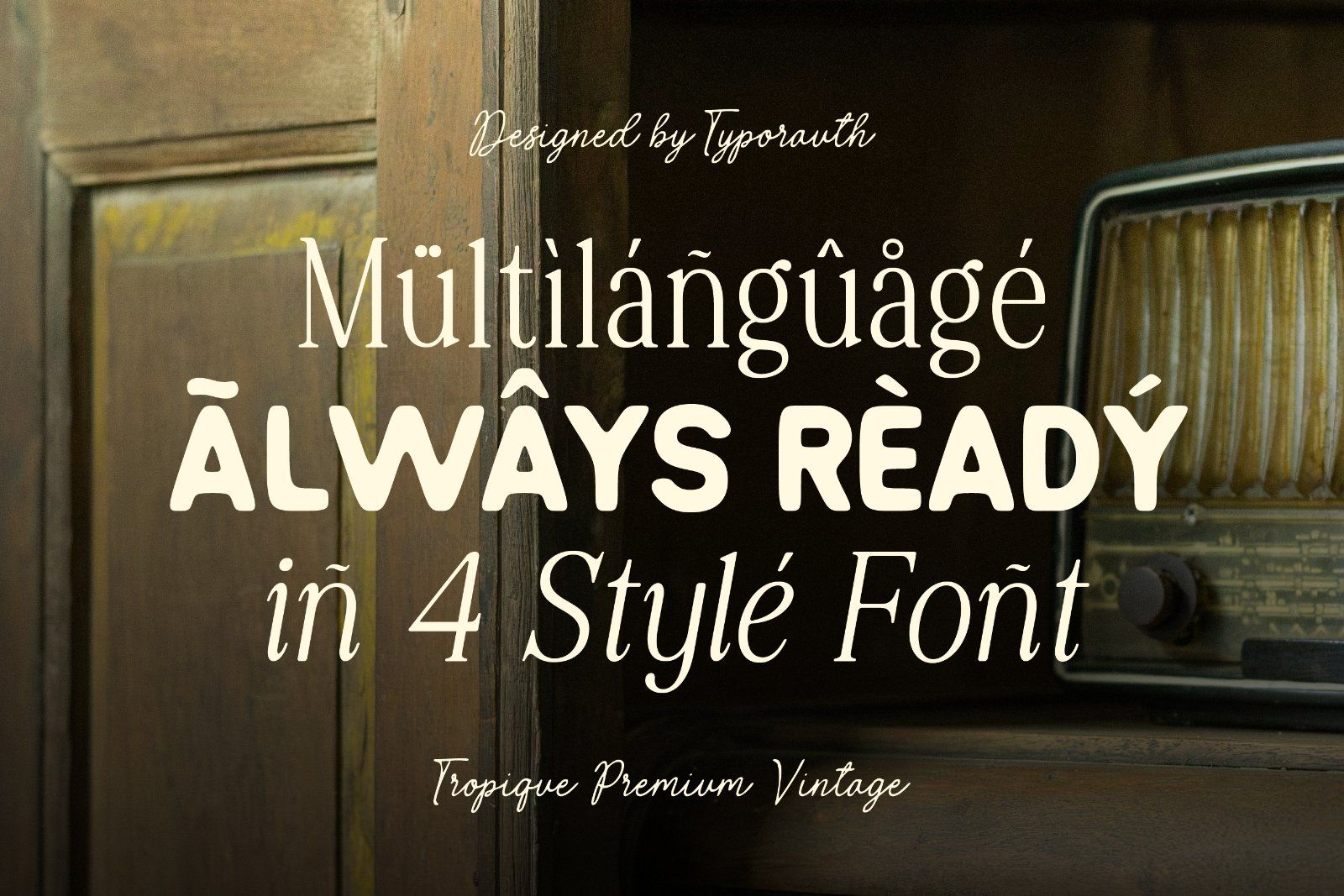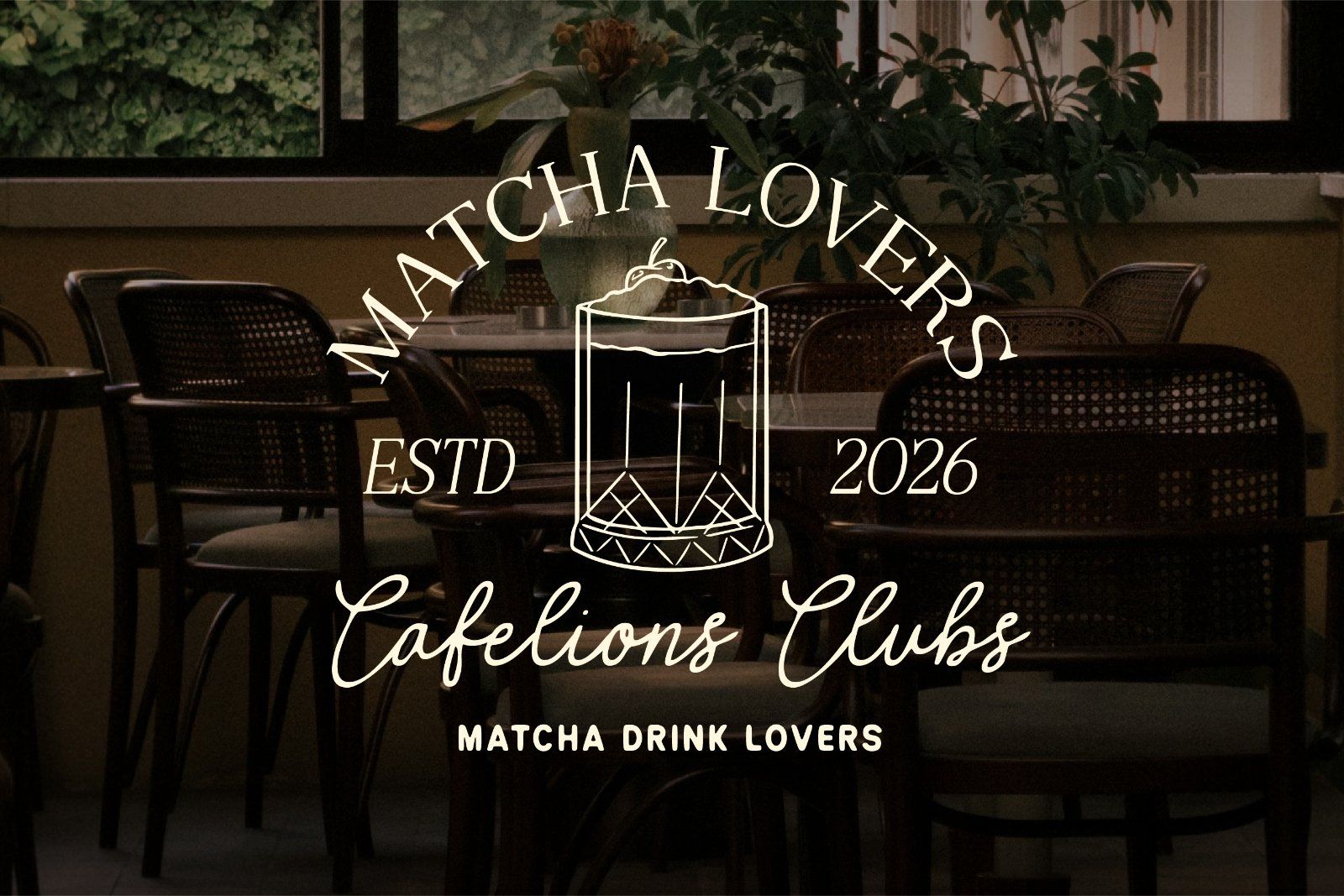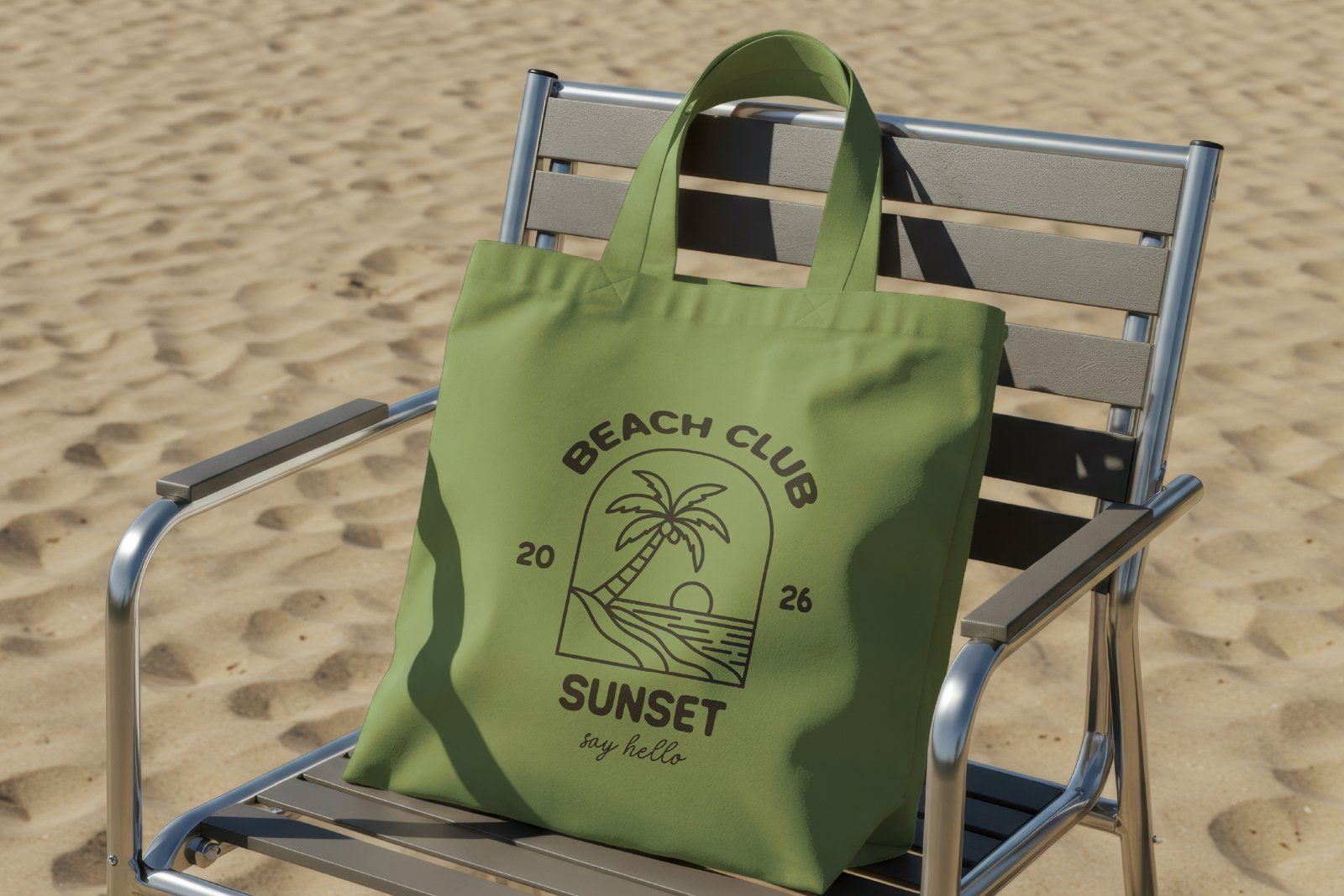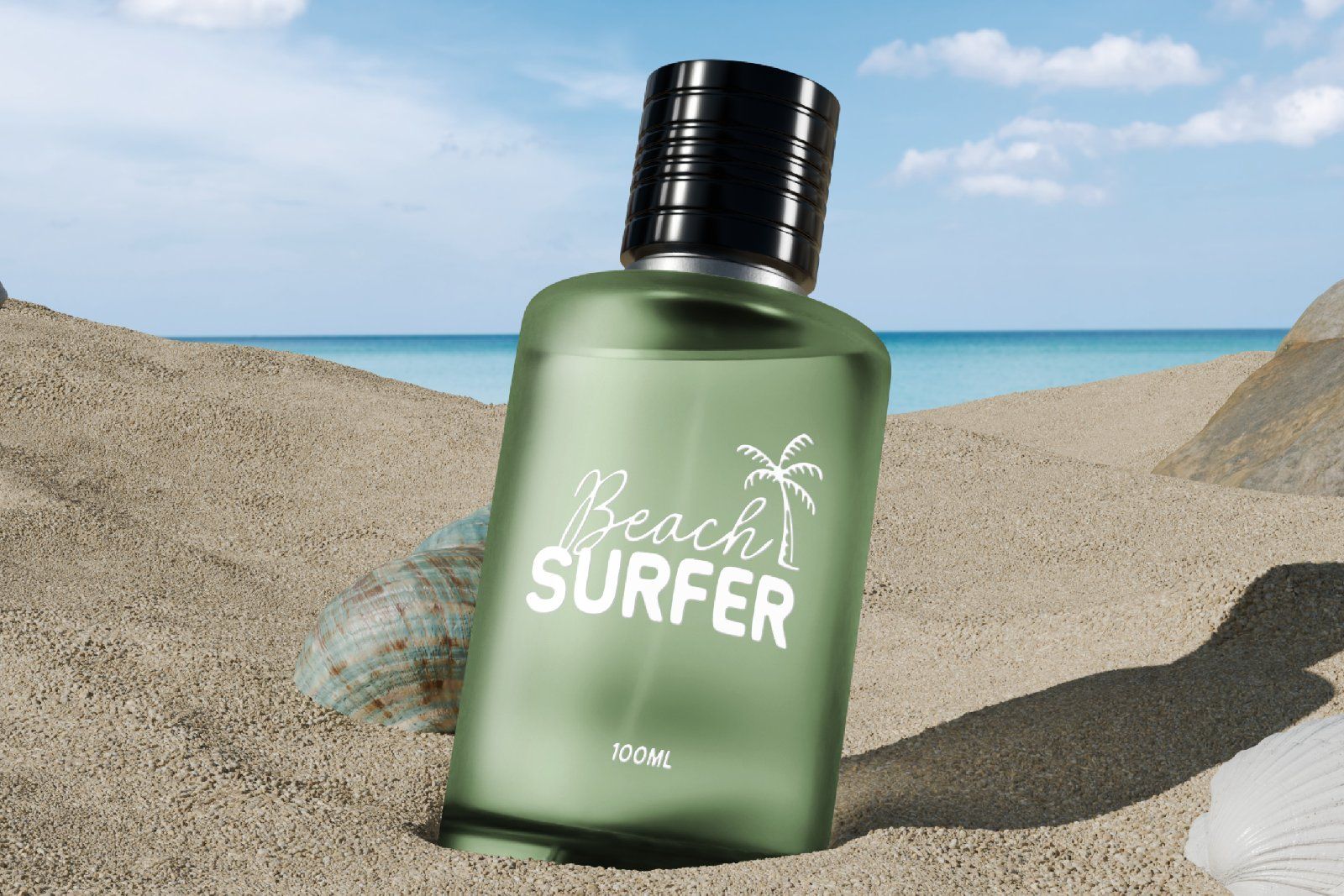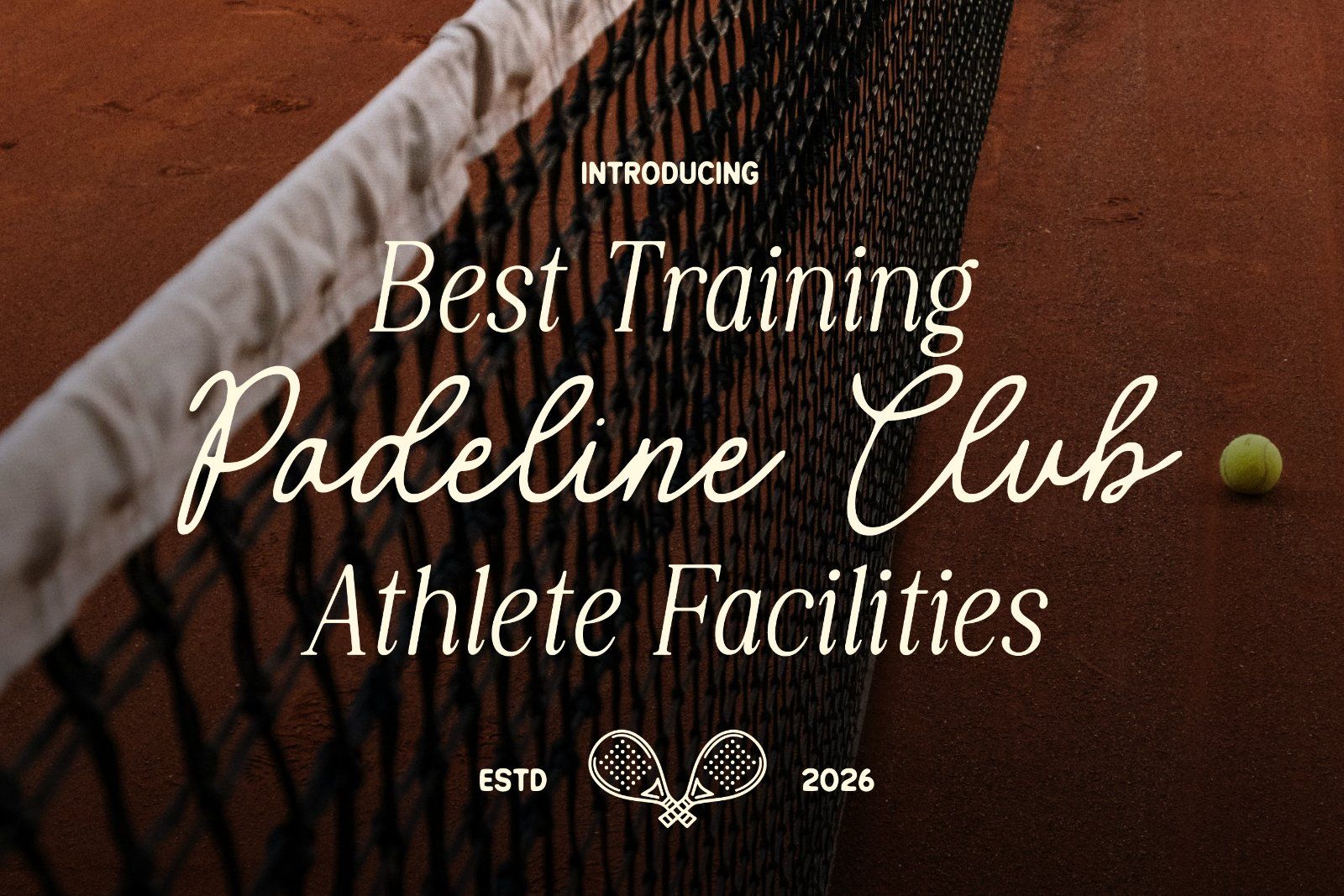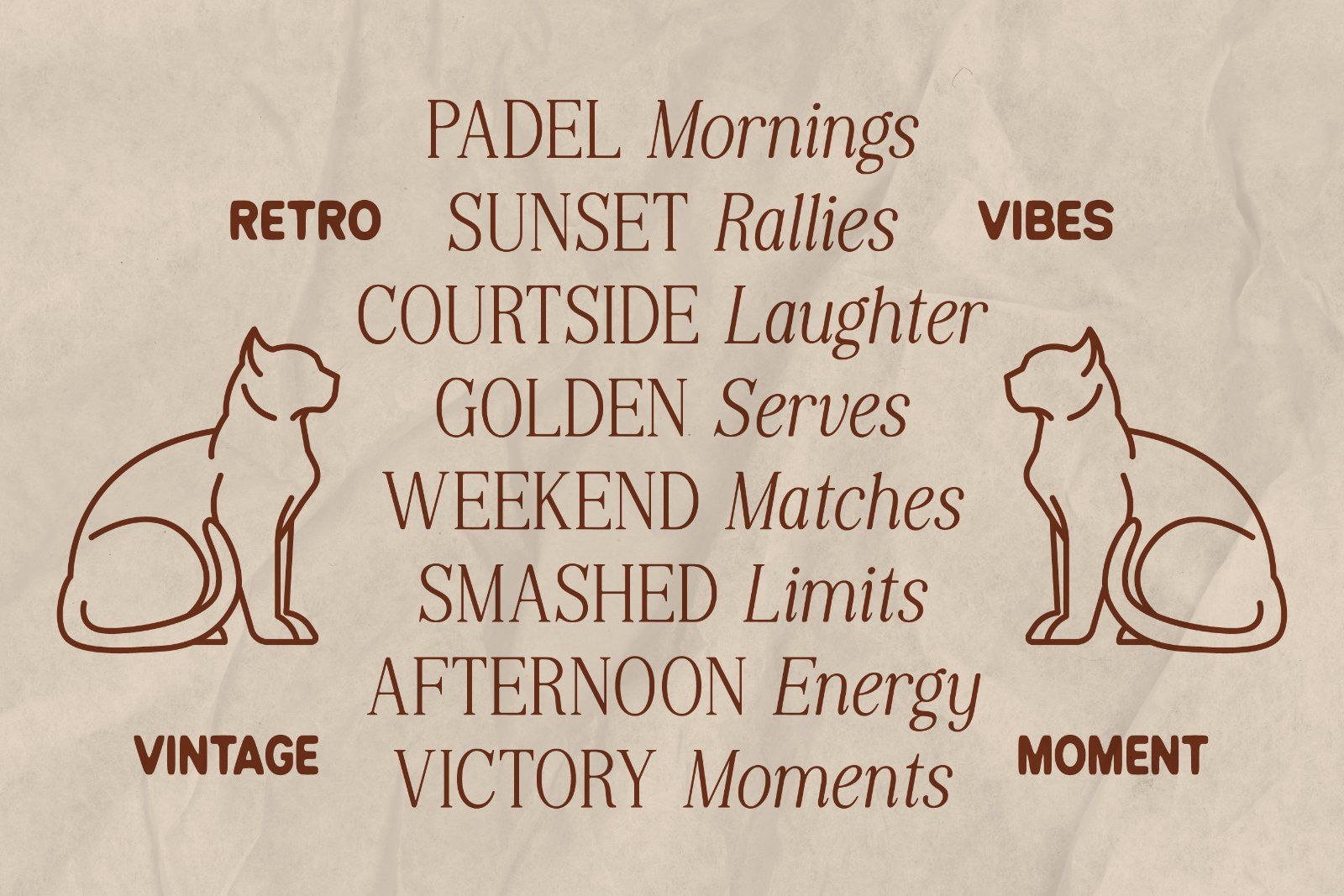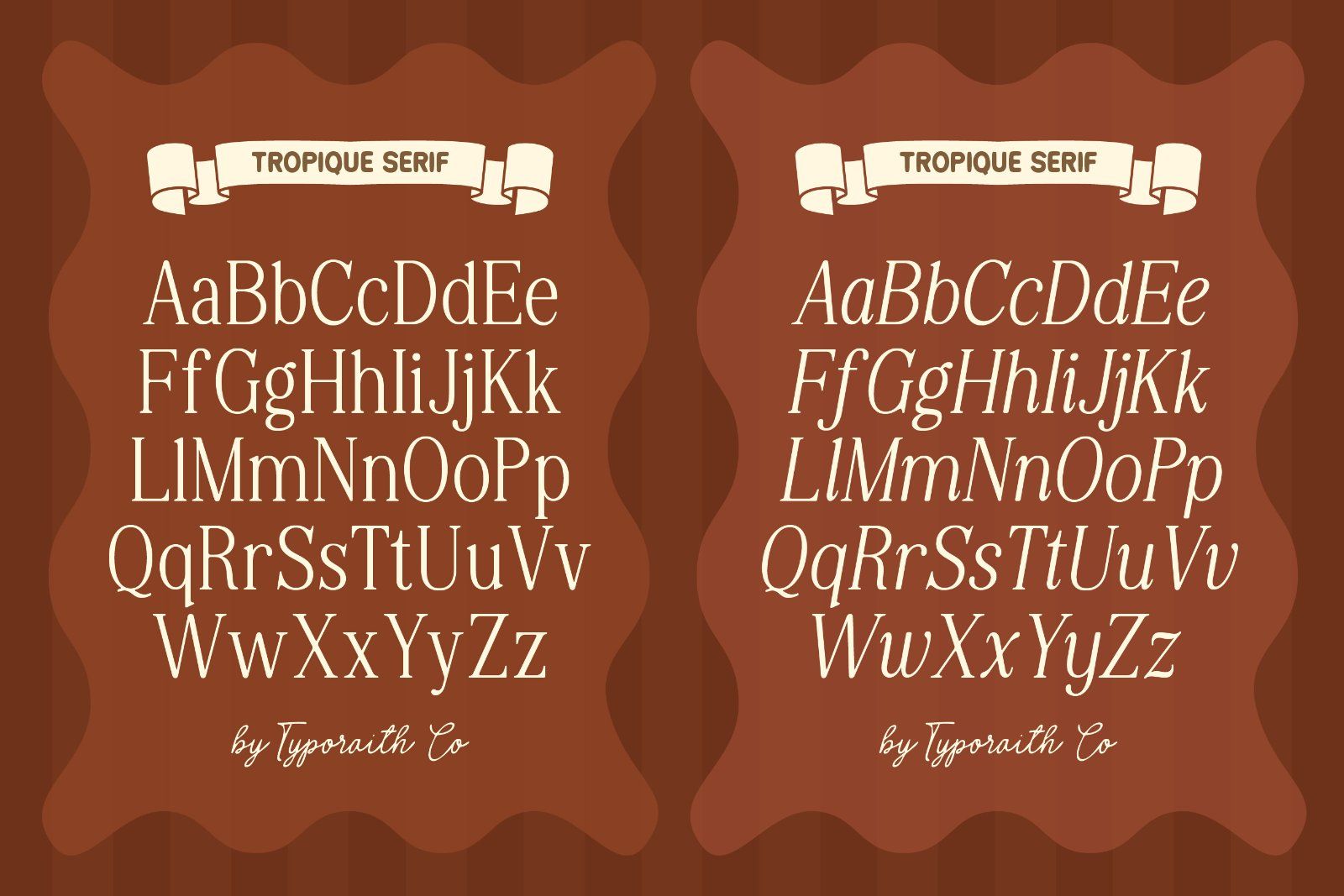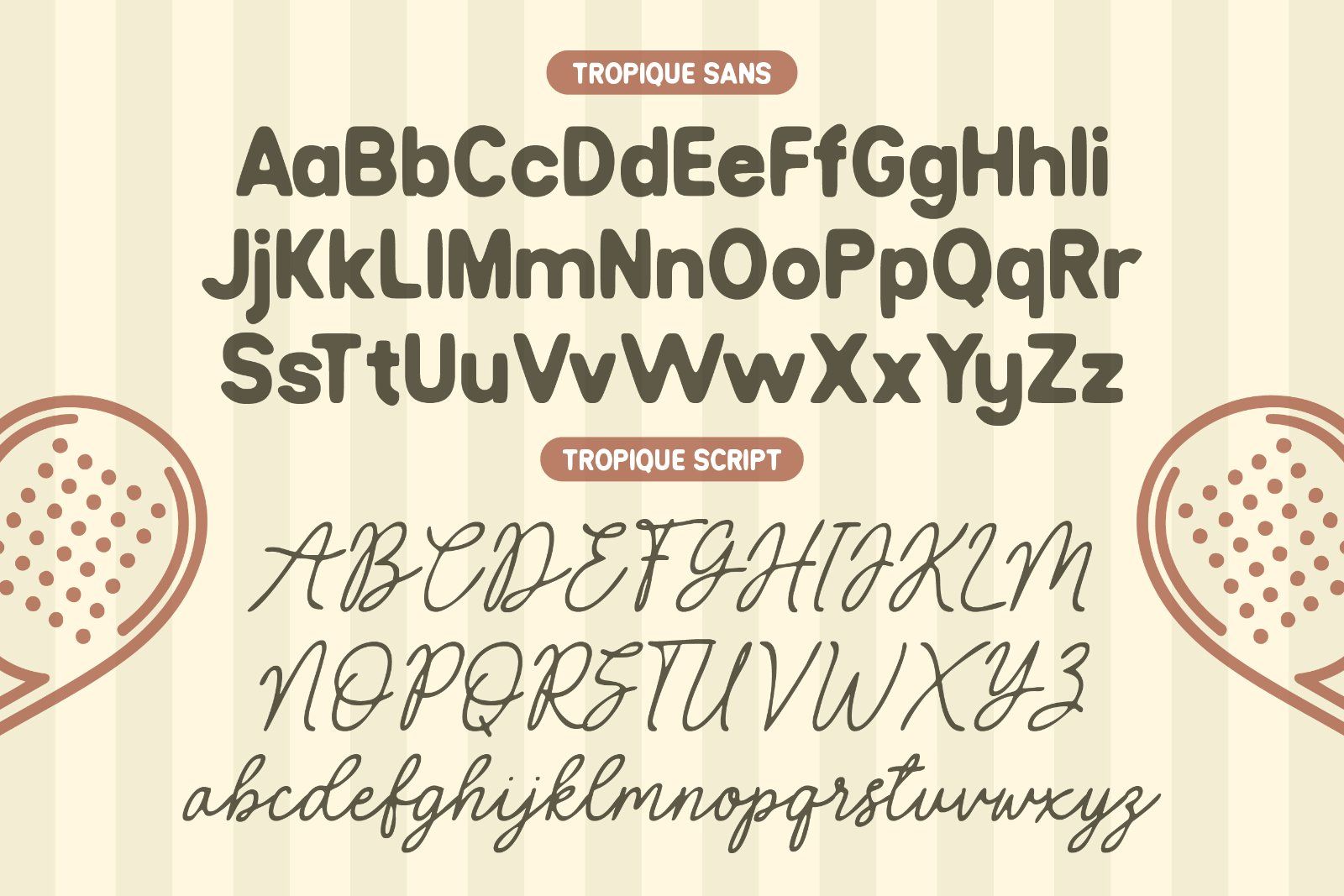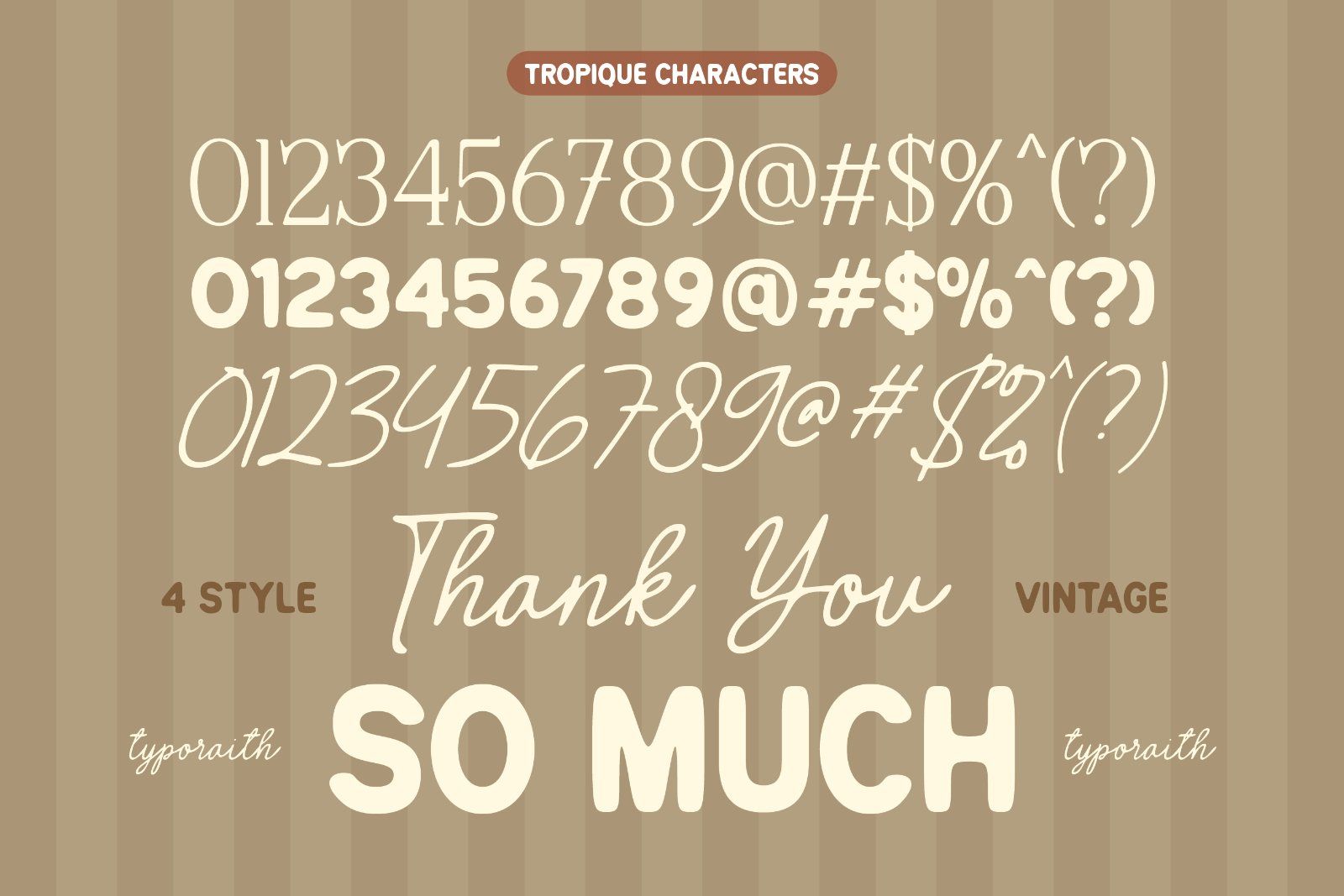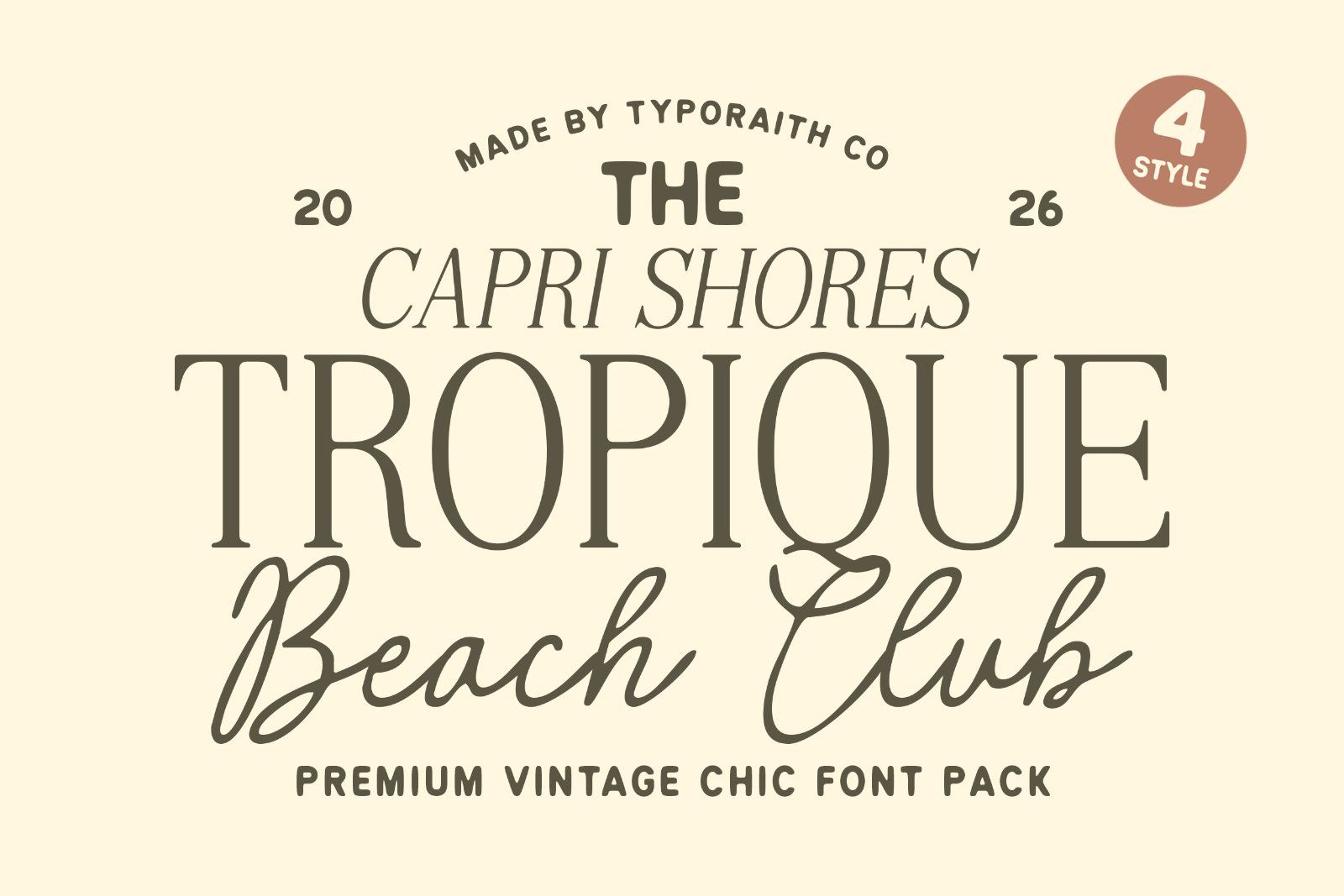
Tropique Beach Club, a premium vintage chic font pack crafted to bring a timeless coastal elegance into your creative projects. Inspired by luxury beach resorts, retro editorial typography, and modern Mediterranean aesthetics, this font collection blends sophisticated serif styles with flowing signature scripts for a perfectly balanced look.
Designed with 4 unique styles, Tropique Beach Club is ideal for branding, logo design, packaging, fashion editorials, wedding invitations, social media templates, café menus, beauty products, and stylish marketing materials.
The combination of elegant serif characters and natural handwritten script creates a classy yet relaxed atmosphere — perfect for creators who want their designs to feel luxurious, warm, and effortlessly aesthetic.
• 4 Font Styles
• Numbers & Punctuation
• Ligatures & Alternates
Perfect For:
• Branding & Logos
• Vintage Editorial Design
• Fashion & Beauty Projects
• Beach & Summer Themes
• Packaging Design
• Social Media Content
• Wedding Invitations
• Café & Lifestyle Branding
Create stunning typography with a touch of vintage luxury using Tropique Beach Club.